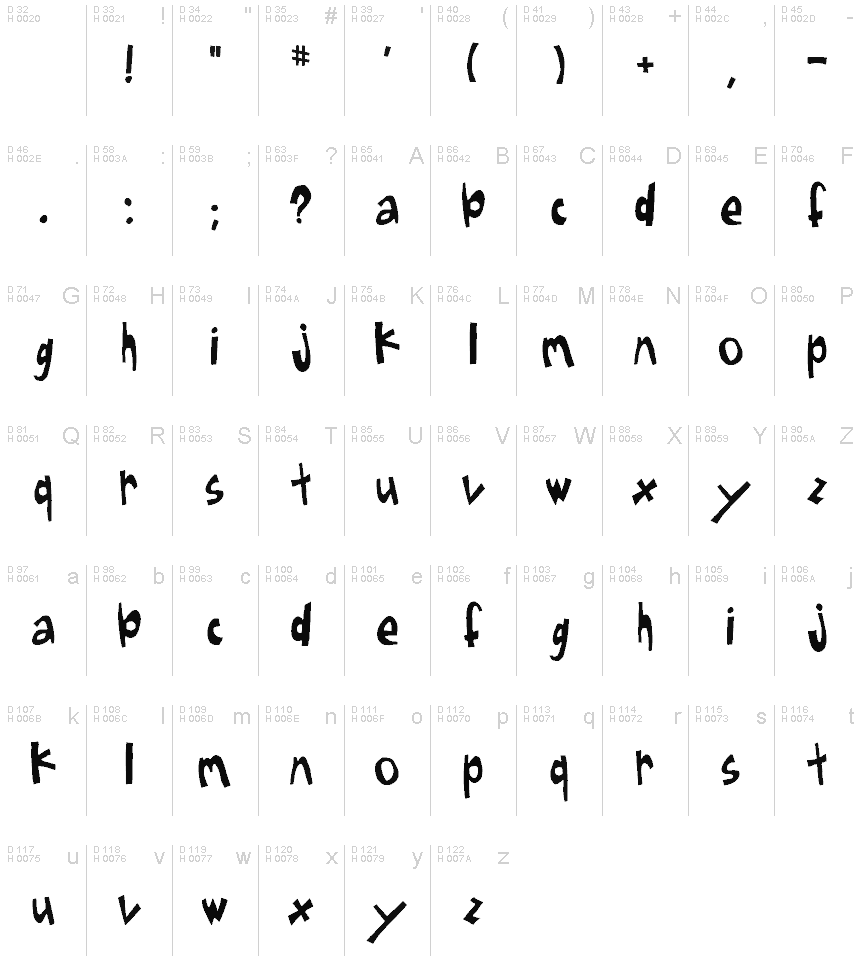
Sugarfish
Sugarfish leaps off the page with its playful energy and cartoonish charm, a testament to the creative prowess of Slut Digital Type. As a display font, Sugarfish is designed to capture attention and convey lightheartedness with its condensed characters that cleverly save space while maximizing impact. The whimsical twists and turns of each letter bring a dynamic rhythm to text, making it an excellent choice for projects that aim to be fun, engaging, and accessible.
The aesthetic appeal of Sugarfish lies in its informal yet bold design which embodies a certain joie de vivre rarely found in more traditional typefaces. It's this distinctive style that makes it particularly suitable for eye-catching headlines, playful product packaging, vibrant advertisements or any creative endeavor that benefits from a touch of humor and personality.
Whether used digitally or in print form, Sugarfish has the potential to make your content stand out with its unmistakable style—perfect for designers looking to infuse their work with character and originality.
The aesthetic appeal of Sugarfish lies in its informal yet bold design which embodies a certain joie de vivre rarely found in more traditional typefaces. It's this distinctive style that makes it particularly suitable for eye-catching headlines, playful product packaging, vibrant advertisements or any creative endeavor that benefits from a touch of humor and personality.
Whether used digitally or in print form, Sugarfish has the potential to make your content stand out with its unmistakable style—perfect for designers looking to infuse their work with character and originality.